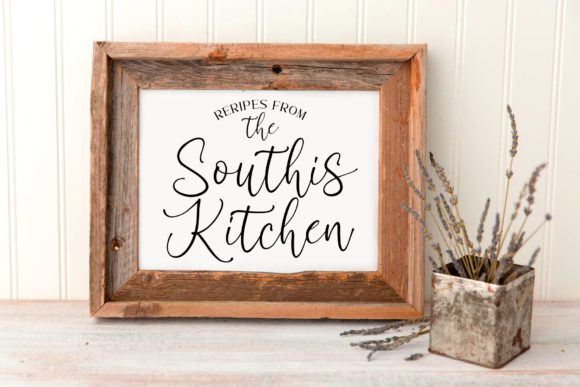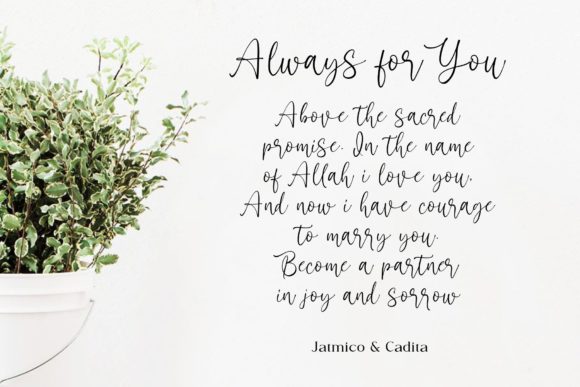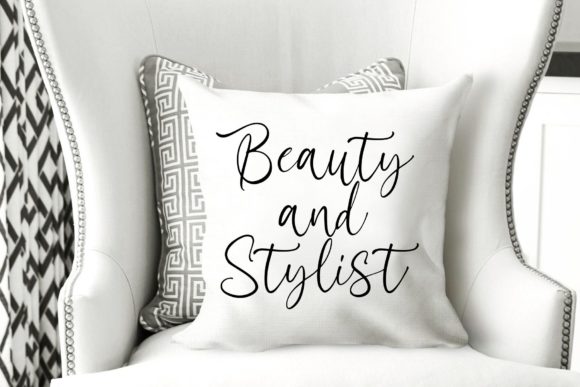
Introduction to Sechillia Ruster Font
As a designer, have you ever felt the thrill of discovering a new font that perfectly captures the essence of your creative project? For me, that moment came when I stumbled upon the charming Sechillia Ruster Font. Its joyful, bouncy, and quirky vibe instantly made me want to create something special.
Imagine having a font that can add a touch of whimsy and friendliness to your designs, making them stand out from the crowd. That’s exactly what the Sechillia Ruster Font offers. Whether you’re working on a free download project or need a design resource for a commercial client, this font is sure to bring a smile to your face.
With its high-quality design and transparent background, the Sechillia Ruster Font is a valuable asset for any designer looking to elevate their creative work. In this article, we’ll delve into the world of this delightful font and explore why it’s a must-have for your design arsenal.
Key Features of Sechillia Ruster Font
- Unique, hand-drawn design ideal for creative projects and design resources.
- Features a transparent background, making it suitable for use on various backgrounds.
- High-quality font with a high resolution of 300 DPI, suitable for print and digital use.
- Supports Latin script, making it suitable for use in a variety of languages.
- Perfect for designers looking for a unique and creative font to enhance their design projects.
Honest Review: Sechillia Ruster Font
As a designer, I’m always on the lookout for high-quality fonts to elevate my creative projects. Recently, I had the chance to try out the Sechillia Ruster Font, and I’m excited to share my honest review.
- ✨ The font is incredibly versatile and can be used for a variety of design projects, from elegant invitations to modern logos.
- ✨ The high-quality design ensures a smooth, even texture that’s perfect for printing or digital use.
- ✨ The transparent background makes it easy to layer the font over other design elements.
- ⚠️ The font is not as customizable as some other design resources, which may limit its appeal for designers who like to get creative.
Overall, I’m impressed with the Sechillia Ruster Font. While it may have a few limitations, its high-quality design and versatility make it a valuable addition to any design resource library.
How to Use Sechillia Ruster Font
Sechillia Ruster Font Overview
The Sechillia Ruster Font is a unique design resource perfect for creative projects. It features a high-quality, elegant script that can elevate any visual content.
For optimal results, use the Sechillia Ruster Font with a transparent background to allow the elegant script to take center stage. Experiment with different font sizes and colors to find the perfect combination for your project.
The Sechillia Ruster Font is perfect for:
- Special occasion cards and gifts
- Branding and logo design
- Editorial and publishing projects